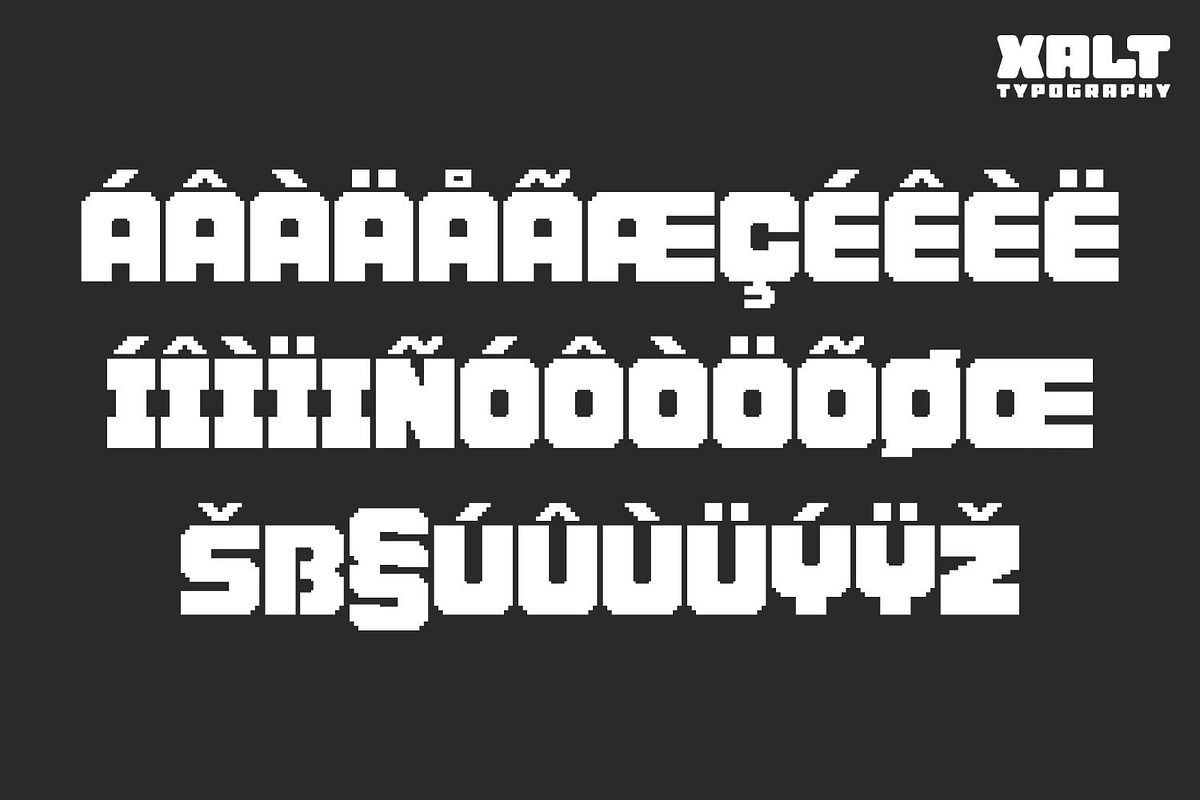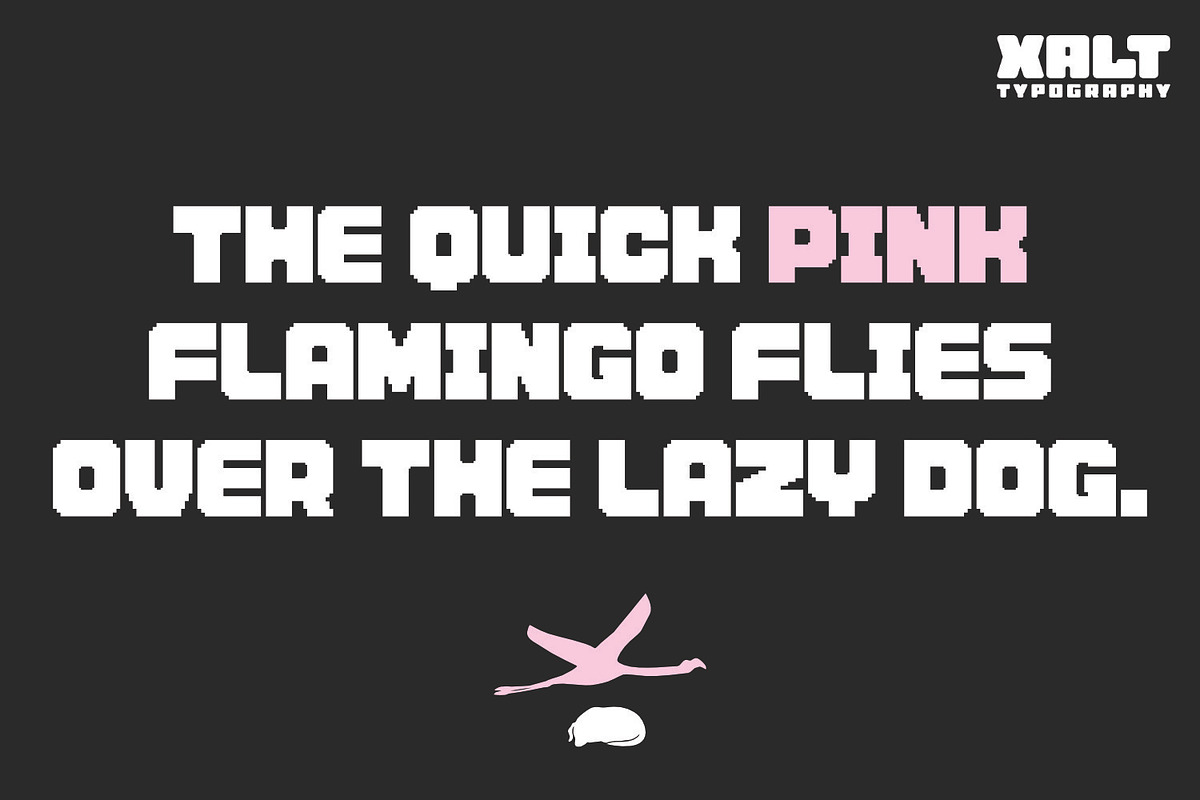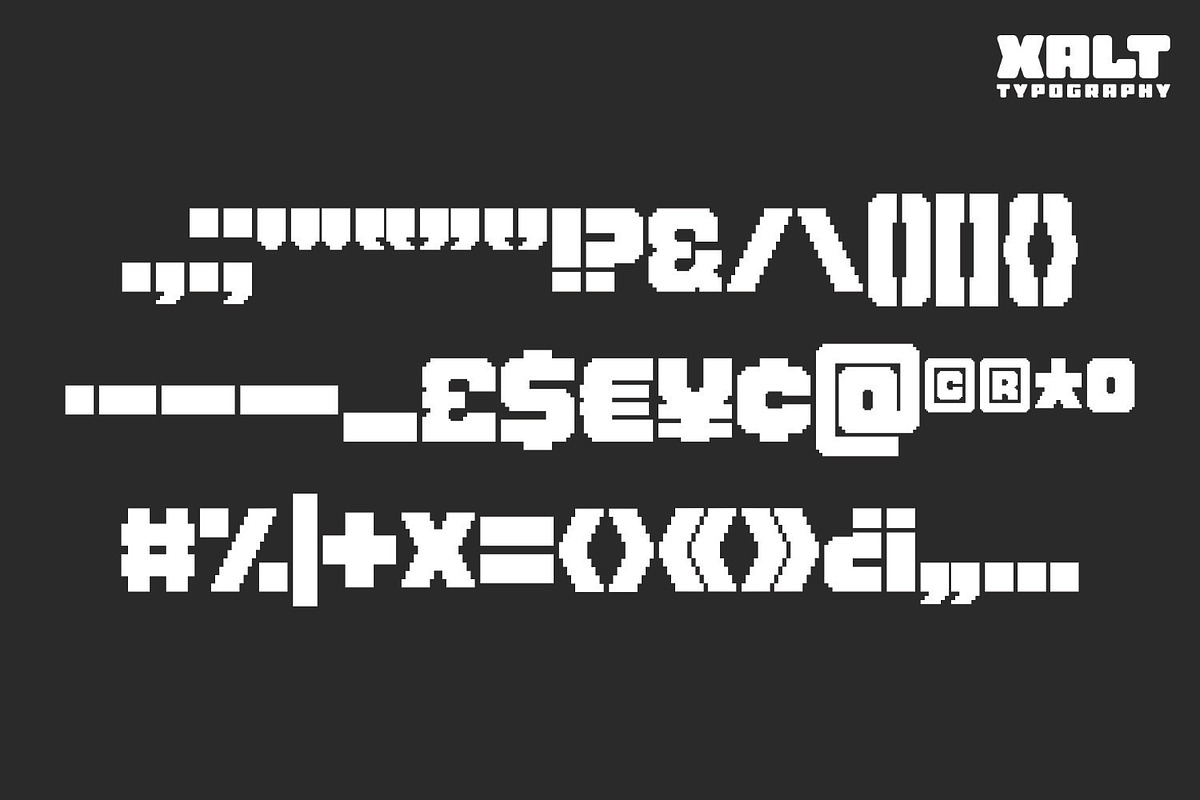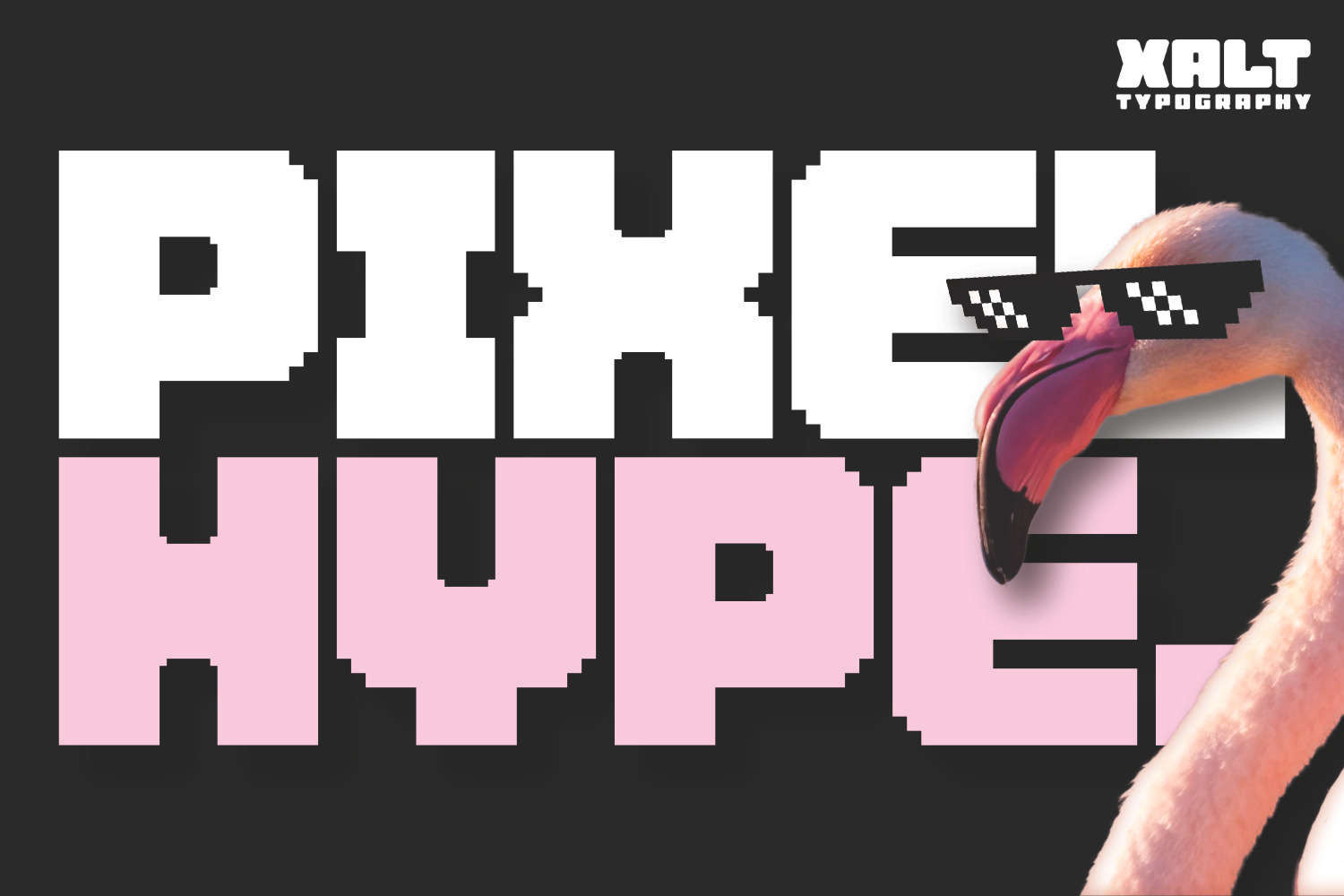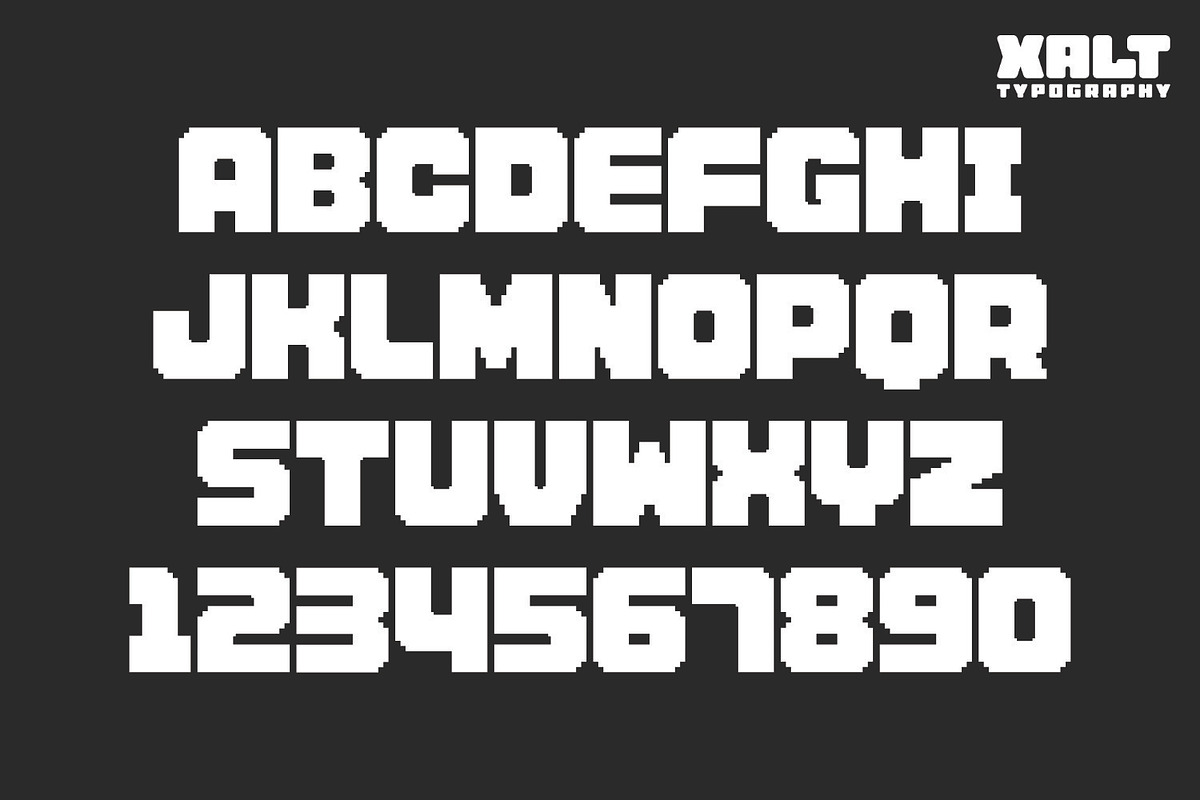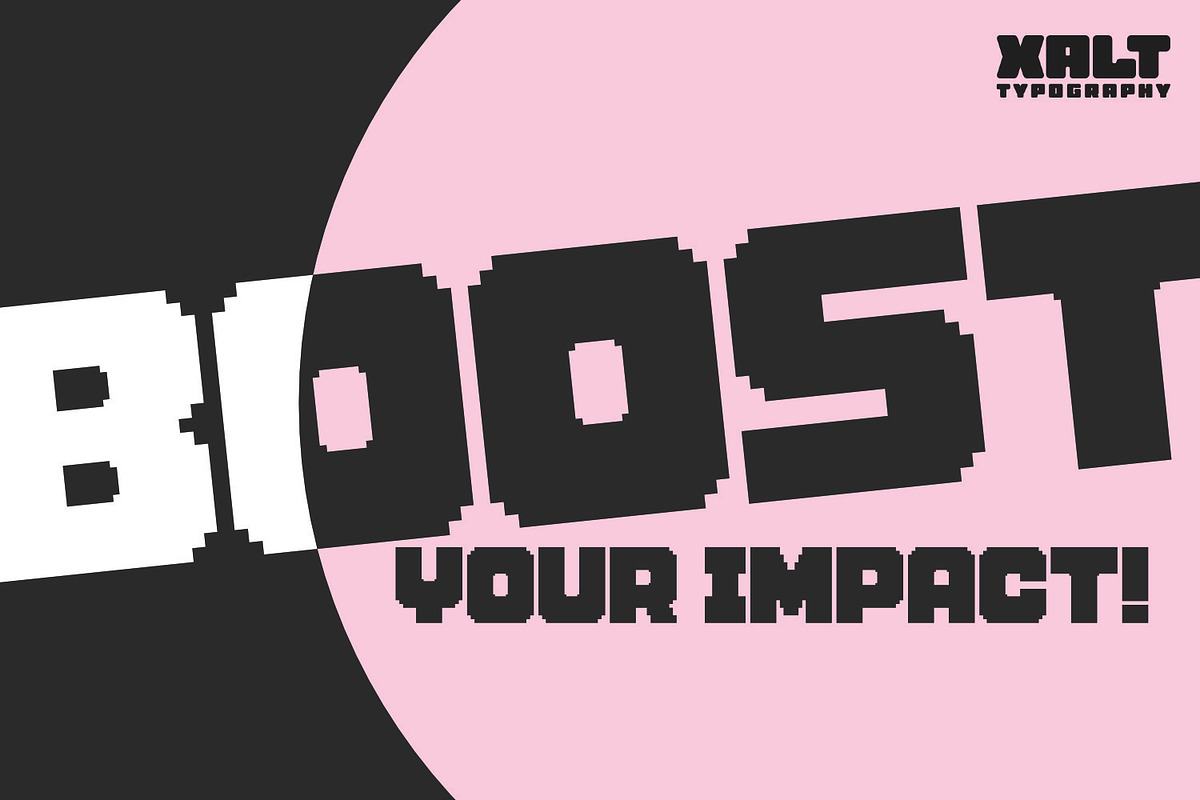
Pixel Hype – Bold Pixel Display Font
Pixel Hype is a cool, modern pixel font designed for maximum impact and style!
Crafted with intense precision, every pixel has been carefully measured and positioned, resulting in a font that is visually impactful, versatile and dependable. No matter what you type, Pixel Hype is ready to deliver your message with clarity and confidence.
Here's why you should add Pixel Hype to your toolkit:
Super versatile: This bold pixel display font is perfect for merchandise, branding, social media graphics, packaging, gaming and more.
Unique characteristics: With its distinctive pixelated personality, Pixel Hype brings a fresh take on classic retro aesthetics while maintaining its own original identity.
Extensive punctuation: All essential punctuation marks are included, carefully crafted to match the pixel-perfect style of the typeface.
Multi-lingual support: Extended Latin coverage for French, Spanish, Portuguese, Italian, German and more.